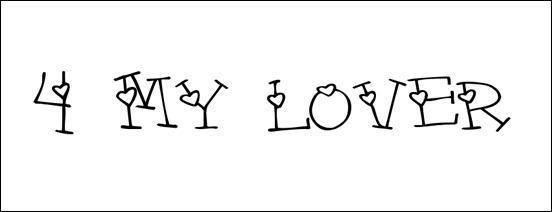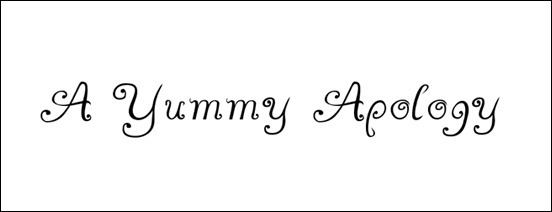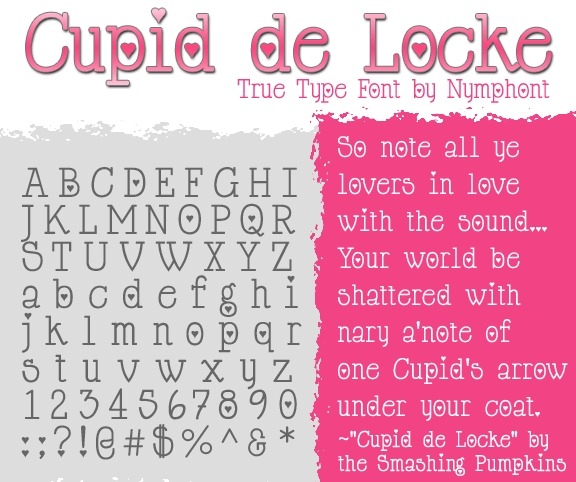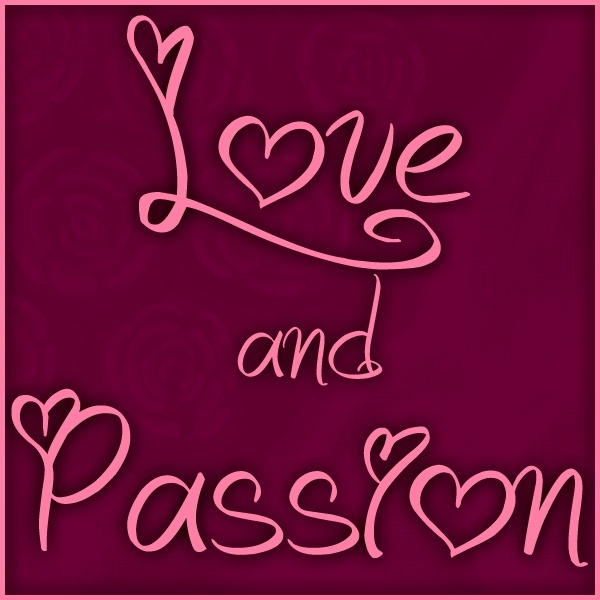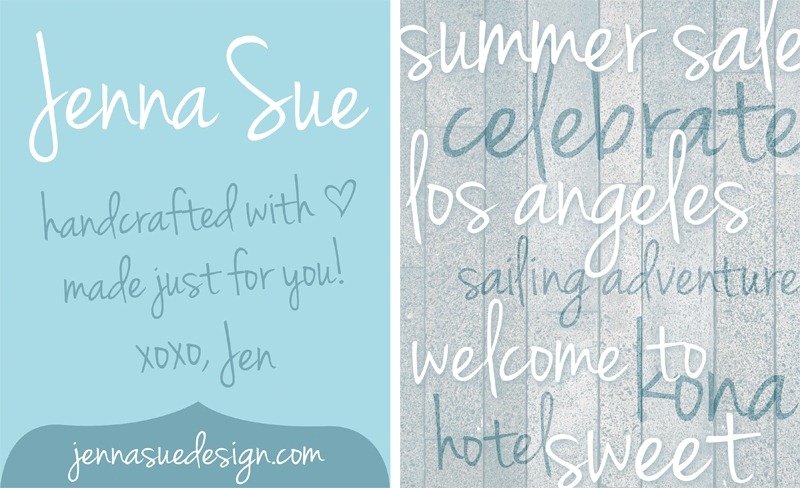
In a few weeks from now, we will be celebrating the most special and the most anticipated day for lovers, the Valentine’s Day. As we are nearing the day of the hearts, people of different walks of life are beginning to think of a gift to express their love to the people they care for. The most common items on the list are flowers, and of course the undying Valentine’s card. For amateur and professional designers alike, Valentine fonts are great design resources to get a good start designing a heartwarming Valentine’s card. A font with a Valentine touch can speed up the process and give the special caring and loving look and feel you need. Used in combination with a heart vector, a skilled designer can make a decent Valentine’s Card in a snap.
In this article, I am sharing some great and useful Valentine fonts that you can use to add a flare of love to your graphic artworks. Whether it is a client commissioned project or a personal design intended to impress your love one come this Valentine’s Day, this Valentine font collection can certainly help you. Some of these fonts are free for both personal and commercial usage, but check the license terms before you use them on your projects.
I Love What You Do!!..
Young Love ES
From Me 2 You
Fiolex Girls
Words of love
Romantically Yours
Love Letters
Love Letters Font
4 My Lover Font
True Stories
Katy Berry Font
Country Hearts
Hole-Hearted
Lovesexy font
I love you Font
A Yummy Apology Font
Baroque Script Font
Heartland
Amore Mio
LoveNess
Times New Romance
Kinkee Font
Virgin Love
Be My Valentine Font
MC Sweetie Hearts
Krishart
Linda’s Lament Font
Heartache Teen Crush Font
Cupidon
All Hearts Font
PeggyFont Light
Rickles, Medium
Hearts Font
Valentine Font
KG Heart Doodles
Love You TFB
Vanessas Valentine
Cupid de Locke
Jenna Sue
Love and Passion